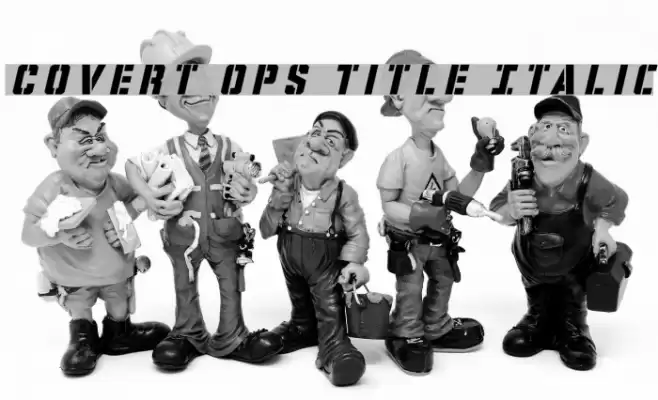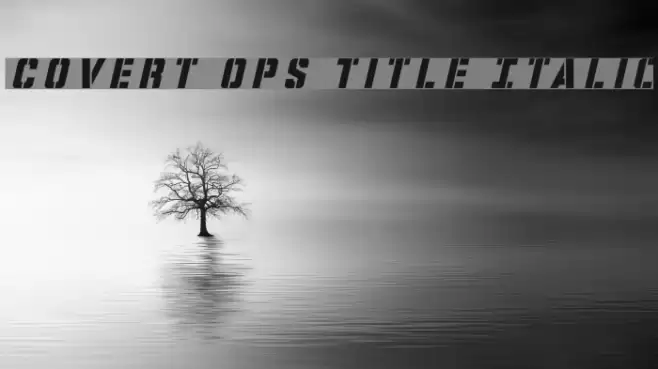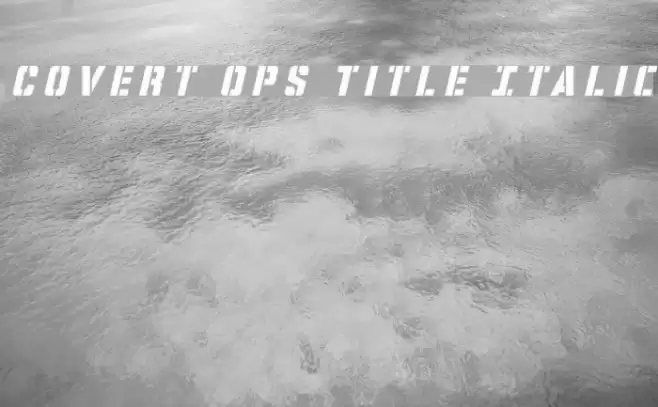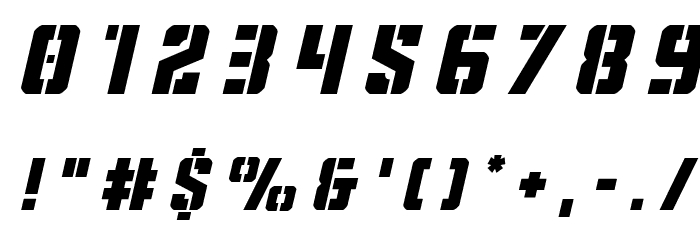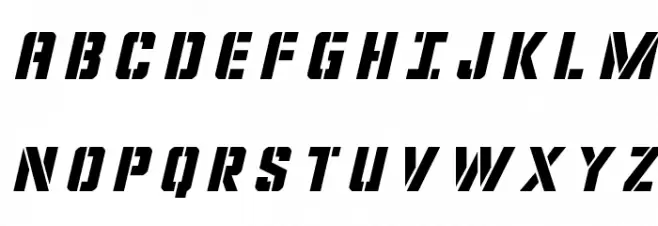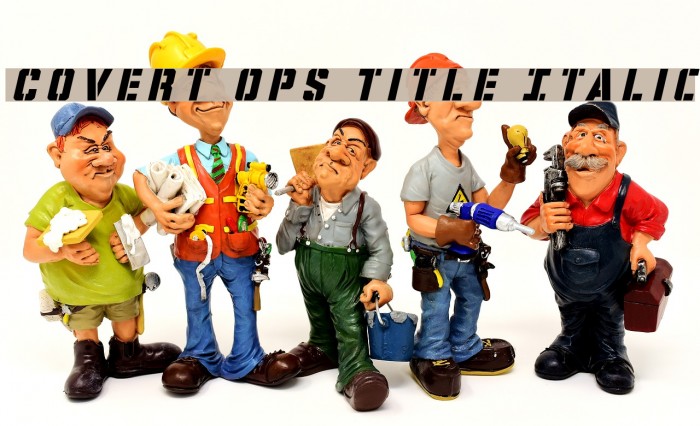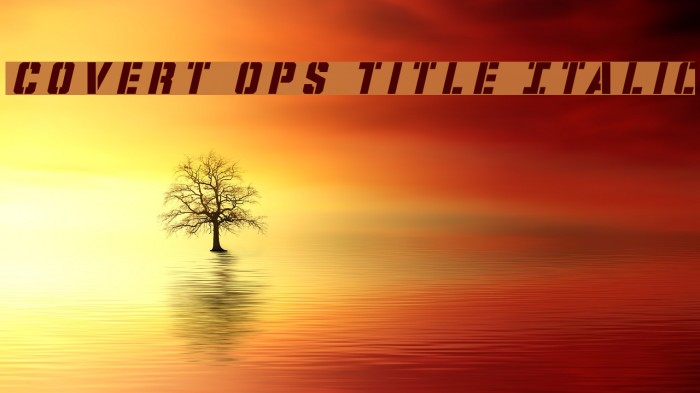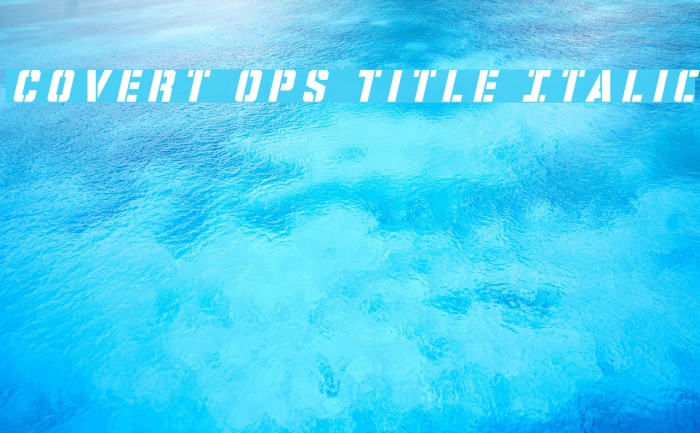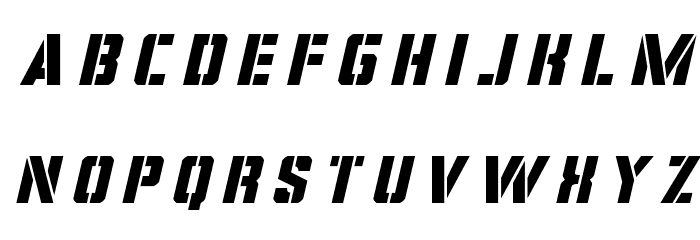
Covert Ops Title Italic Font
Covert Ops Title Italic Description
This font features a bold, italicized style with a distinct stencil-like appearance. The characters are sharply angular, giving a sense of urgency and movement. The uppercase letters are prominent and commanding, while the lowercase letters maintain the same boldness and angularity. Numbers and special characters follow the same design ethos, ensuring consistency across all elements. The font's design is reminiscent of military or tactical themes, making it suitable for projects that require a strong, impactful visual presence.
A bold, italicized stencil-style font with a military-inspired design from Uncategorized fonts.
- Proposed Projects: Ideal for use in military-themed posters, video game titles, action movie graphics, and branding for tactical gear.